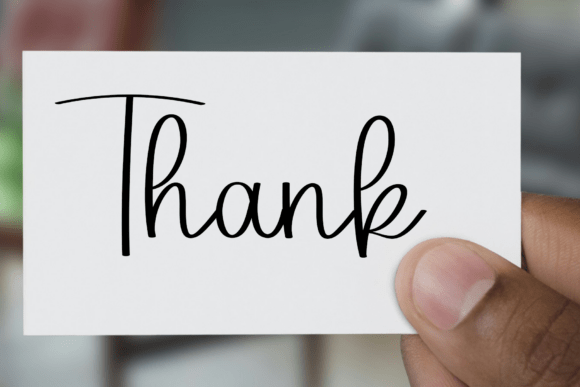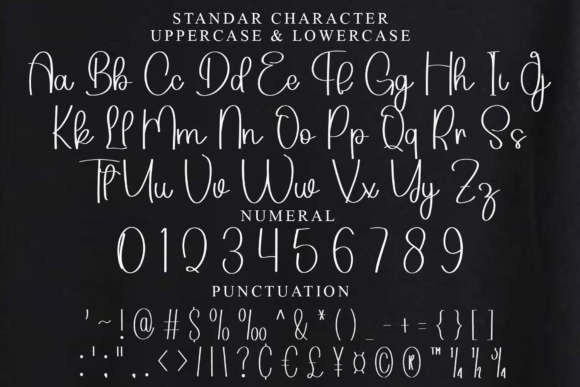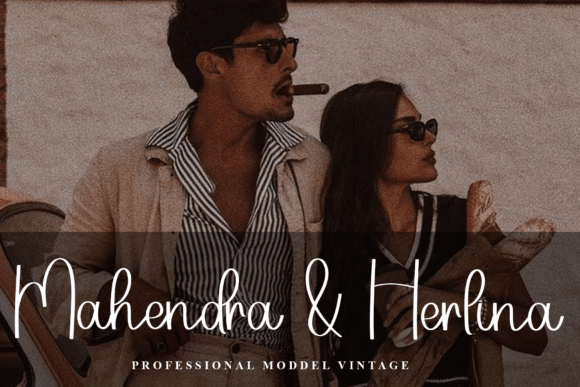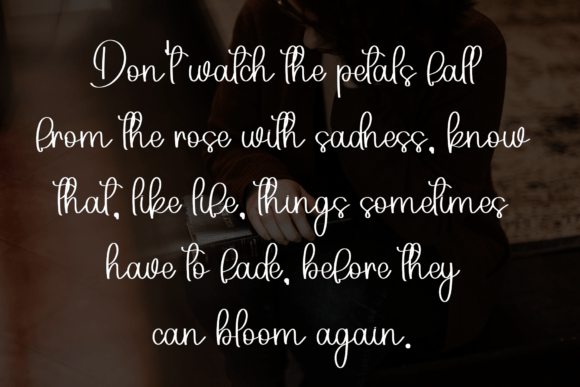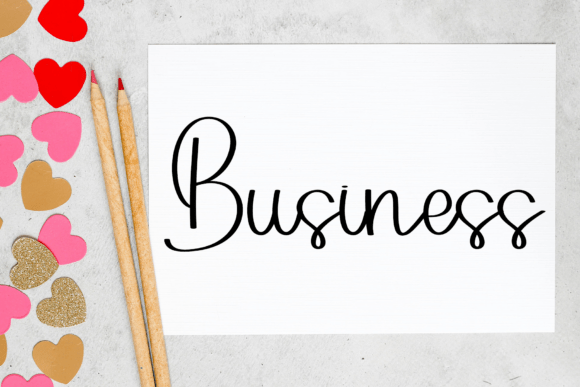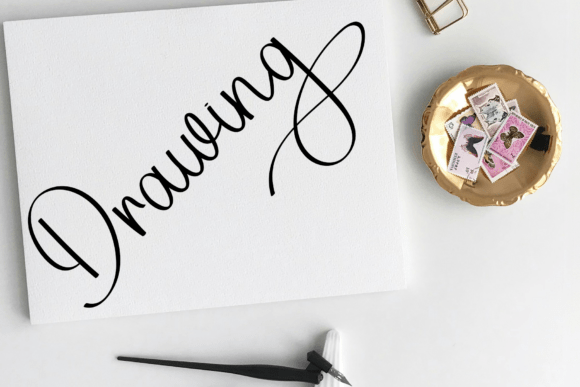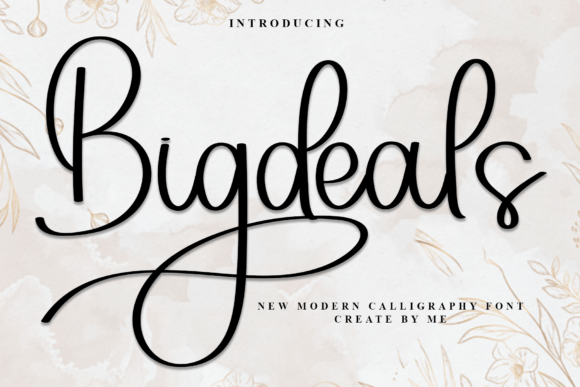
Introducing Bigdeals Font: The Ultimate Casual and Creative Companion for Designers and Crafters
In the world of typography, fonts play a crucial role in conveying the tone and personality of a design. If you’re a designer or crafter looking for a font that exudes warmth, friendliness, and approachability, look no further than Bigdeals Font. This charming, hand-drawn font is perfect for adding a personal touch to your projects, invitations, and social media graphics.
The Characteristics of Bigdeals Font
Bigdeals Font boasts round, playful strokes that create a relaxed and casual feel. Its unique, hand-drawn aesthetic adds a fun and distinctive touch to any design, making it ideal for projects that require a personal and approachable tone. Whether you’re designing an invitation, a social media graphic, or a personal project, Bigdeals Font is sure to make your work stand out.
What Makes Bigdeals Font Special?
Perfect for Personal Projects and Designs
Bigdeals Font is perfect for designers and crafters who work on personal projects, such as:
- Invitations: Add a personal touch to your wedding, birthday, or party invitations with Bigdeals Font.
- Social Media Graphics: Create engaging and approachable social media graphics that showcase your brand’s personality.
- Personal Projects: Use Bigdeals Font to add a unique and creative touch to your personal projects, such as scrapbooking, card making, or crafting.
Benefits of Using Bigdeals Font
By using Bigdeals Font, designers and crafters can enjoy several benefits, including:
- Unique and Creative Designs: Bigdeals Font’s hand-drawn aesthetic adds a distinctive touch to any design, setting it apart from more traditional fonts.
- Time-Saving: With Bigdeals Font, you can quickly create professional-looking designs without spending hours on typography.
Tips for Using Bigdeals Font Effectively
To get the most out of Bigdeals Font, here are some tips to keep in mind:
- Pair it with Other Fonts: Combine Bigdeals Font with other fonts to create a unique and visually appealing design.
- Experiment with Colors: Bigdeals Font looks great in a variety of colors, so don’t be afraid to experiment and find the perfect hue for your design.
- Use it for Headings and Titles: Bigdeals Font is perfect for headings and titles, adding a touch of personality and whimsy to your design.
Bigdeals Font is a versatile and creative font that’s perfect for designers and crafters looking to add a personal touch to their projects. With its unique, hand-drawn aesthetic and compatibility with various application engines, Bigdeals Font is an excellent choice for anyone looking to create professional-looking designs with a personal touch. So why wait? Download Bigdeals Font today and start creating stunning designs that showcase your personality and style!